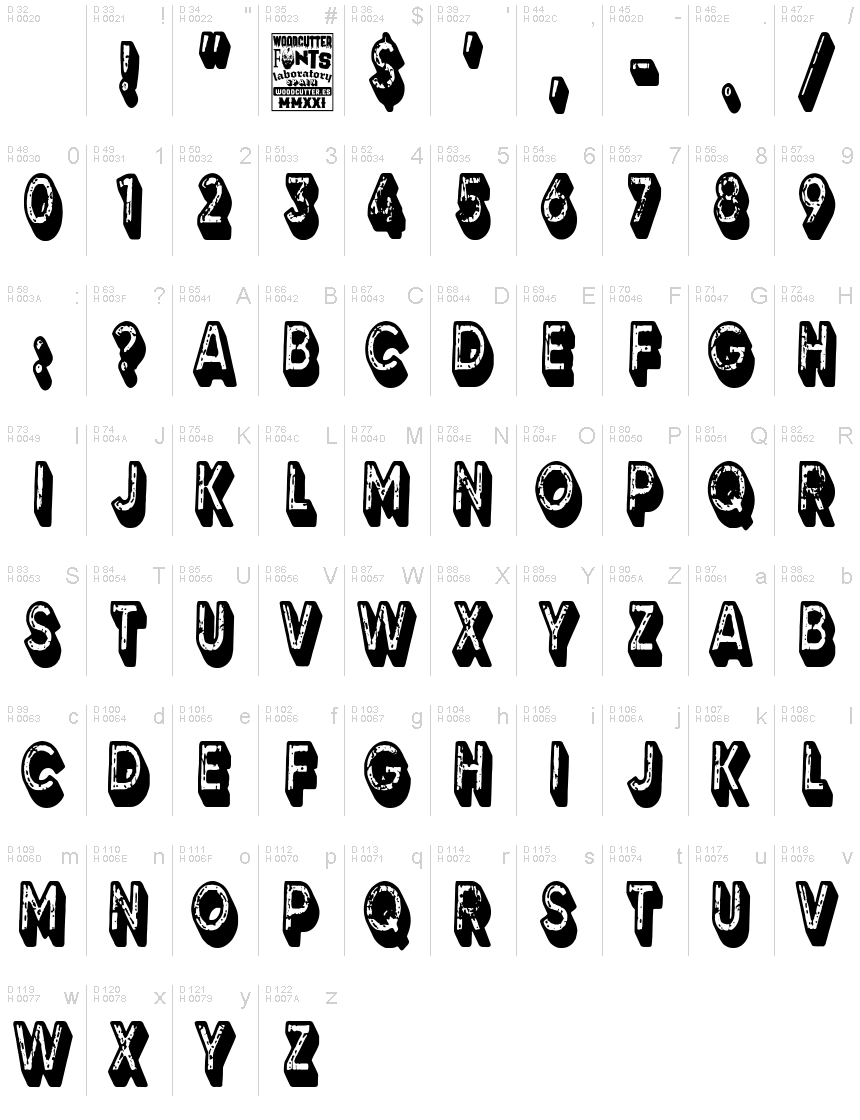
3D Grunge Studio
3D Grunge Studio font, designed by Woodcutter, is a distinctive display typeface that captures attention with its 3D eroded style. The condensed font width exudes a bold and rugged charm, making it perfect for projects that require an edgy and creative touch.
Its unique aesthetic makes it ideal for headlines, posters, and graphic designs seeking to convey a sense of raw energy and originality.